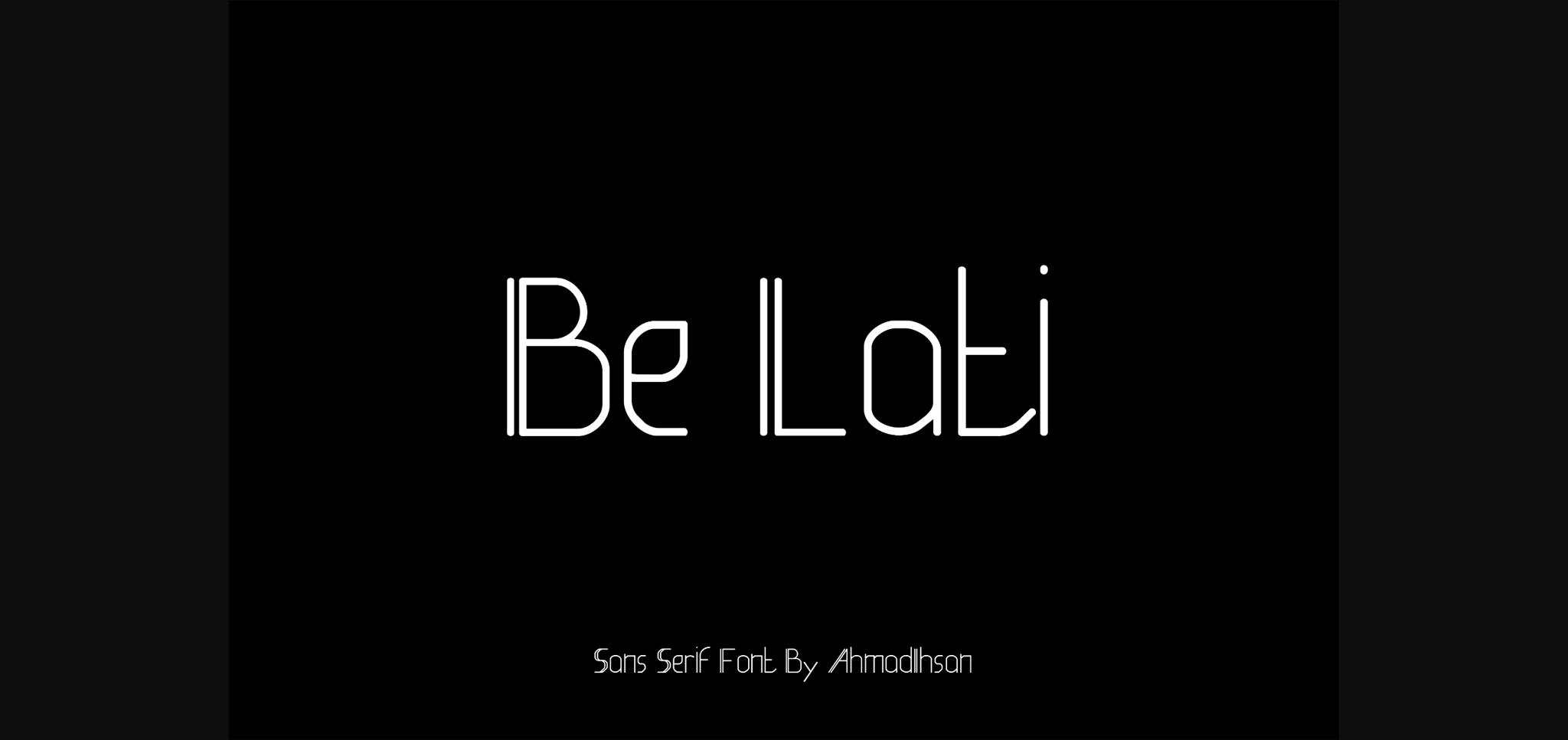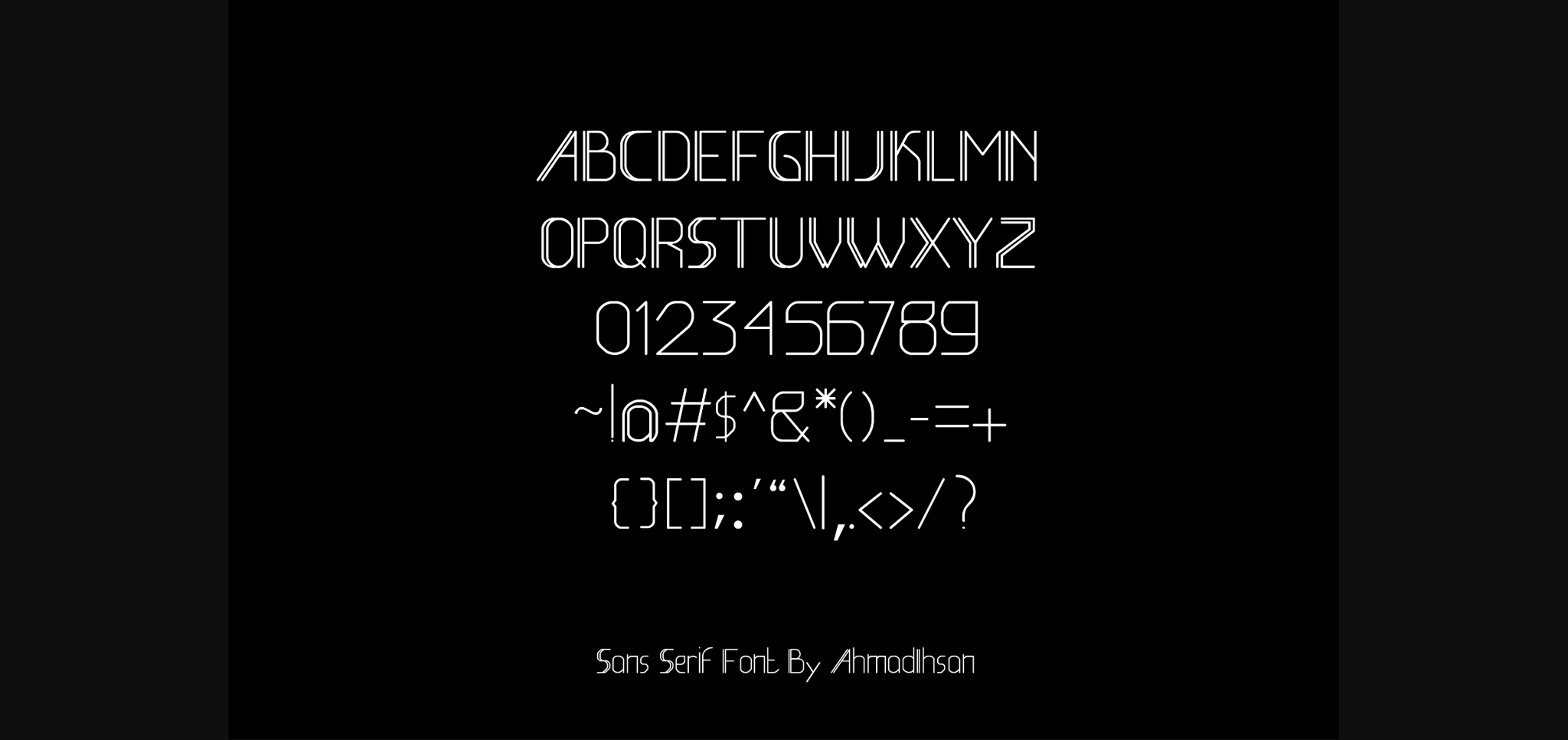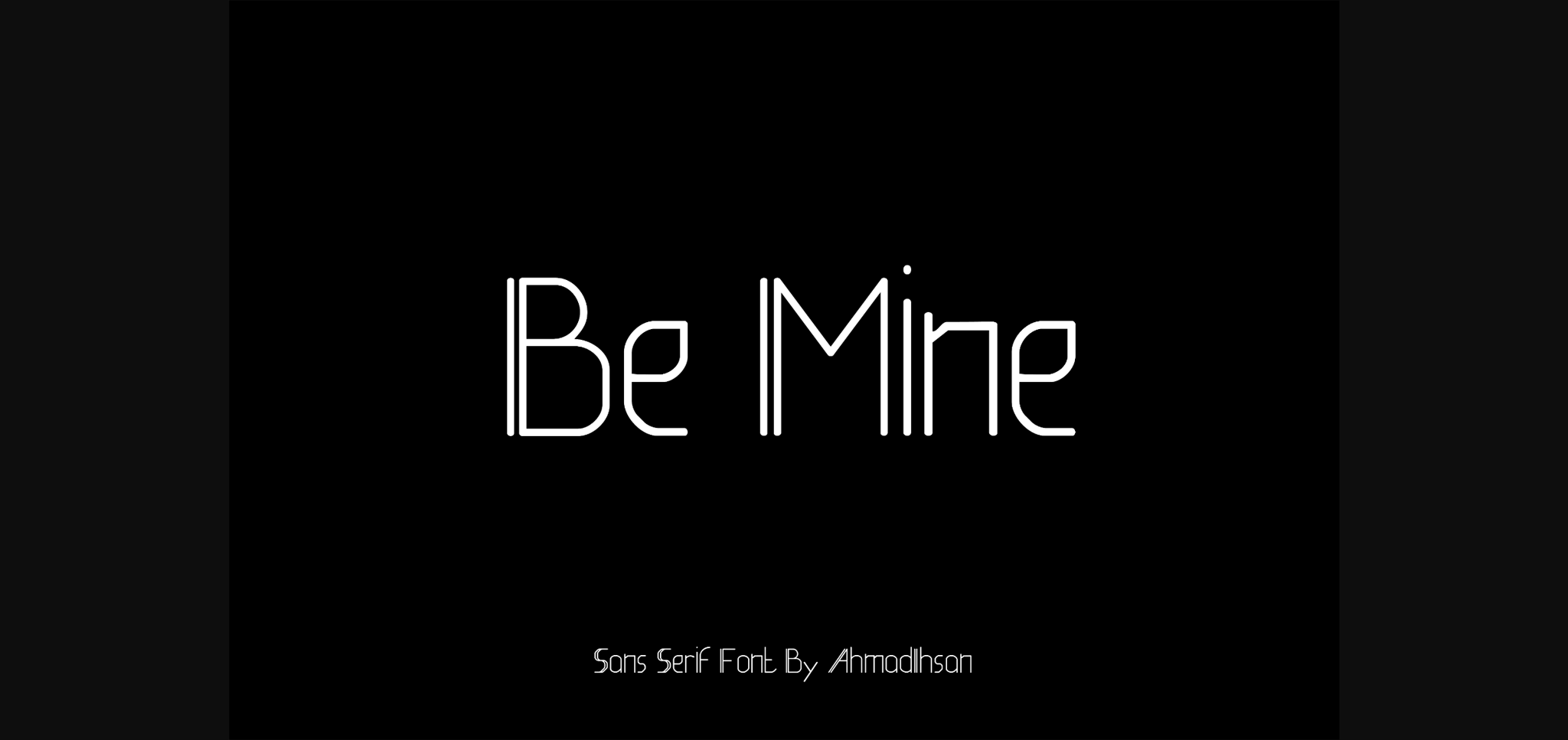
HomeSans Serif FontsBe Lati Font Sans Serif Fonts Be Lati Font FacebookXPinterestWhatsApp 1 of 5 ... Be Lati Font Poster 2... Be Lati Font Poster 3... Be Lati Font Poster 4... Be Lati Font Poster 5... About Be Lati Font Be Lati is a minimal and neat sans serif font. It can easily be matched to an incredibly large set of projects, so add it to your creative ideas and notice how it makes them stand out! DOWNLOAD NOW People also explored Simple Farmhouse Font Aldine Font Mellody Font Aquenta Fracta Font Beach White Font Vexler Slip Sozzled Font Emily’s Candy Pro Otomarcus Font 319 0 TagsBe LatiBe Lati Font Previous articleSmart Love FontNext articleNero Baruno Font LEAVE A REPLY Cancel reply Comment: Please enter your comment! Name:* Please enter your name here Email:* You have entered an incorrect email address! Please enter your email address here Website: Save my name, email, and website in this browser for the next time I comment. Personal Use Free Rare Knuckle Personal Use Free Read more about this font Covelia Personal Use Free Read more about this font Gaboed Personal Use Free Read more about this font Messy Personal Use Free Read more about this font BLOG How to Install and Use Fonts on Windows, macOS, and Web Projects How to Install and Use Fonts on Windows, macOS, and Web Projects Fonts are a crucial part of design and branding. Whether you’re designing a... Transform Your Website: Elevate Your Typography with 7 Best Web Font Generators Free Fonts Risk: Why Free Fonts Can Be Dangerous for Designers Exploring Font Trends